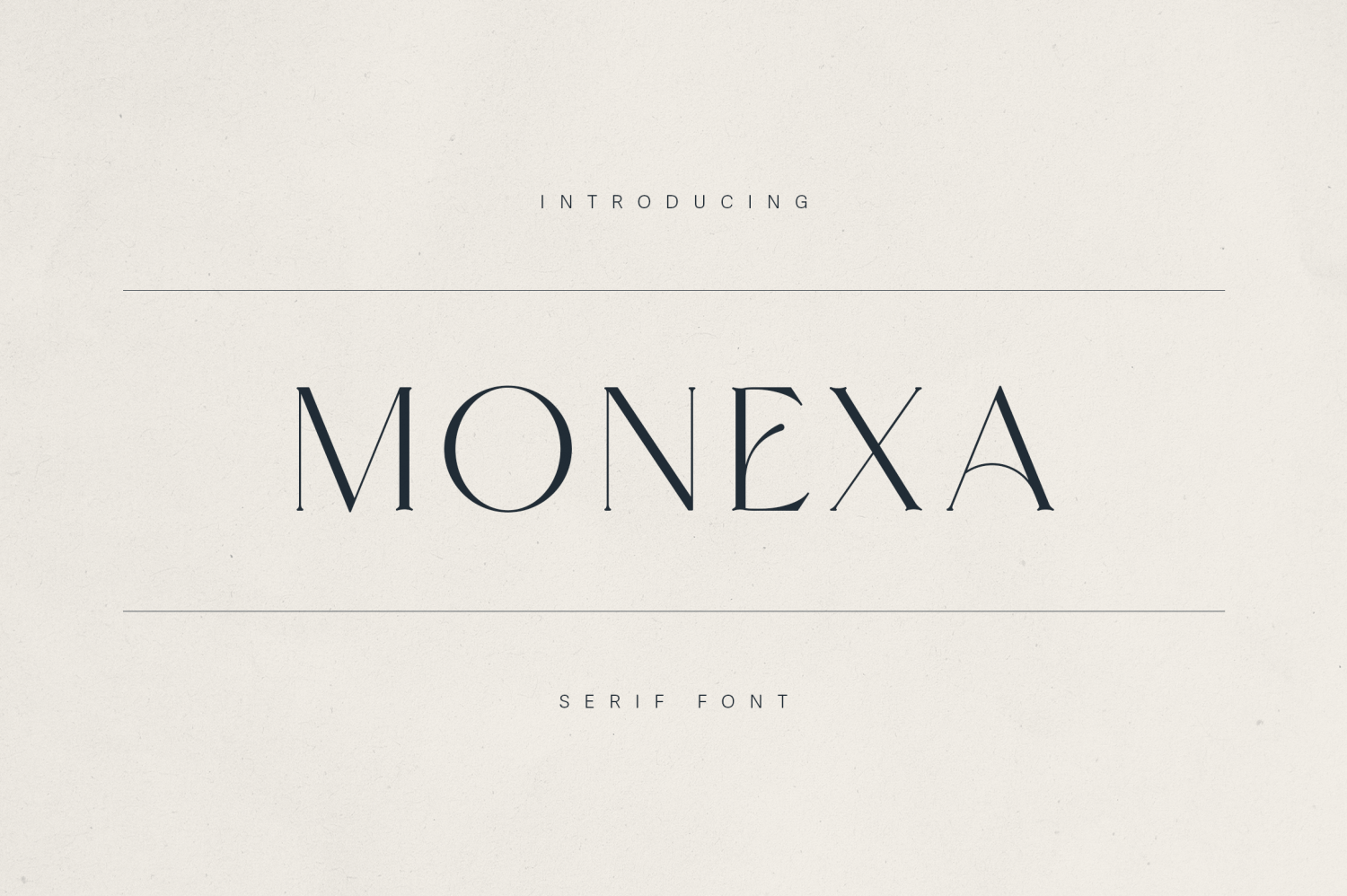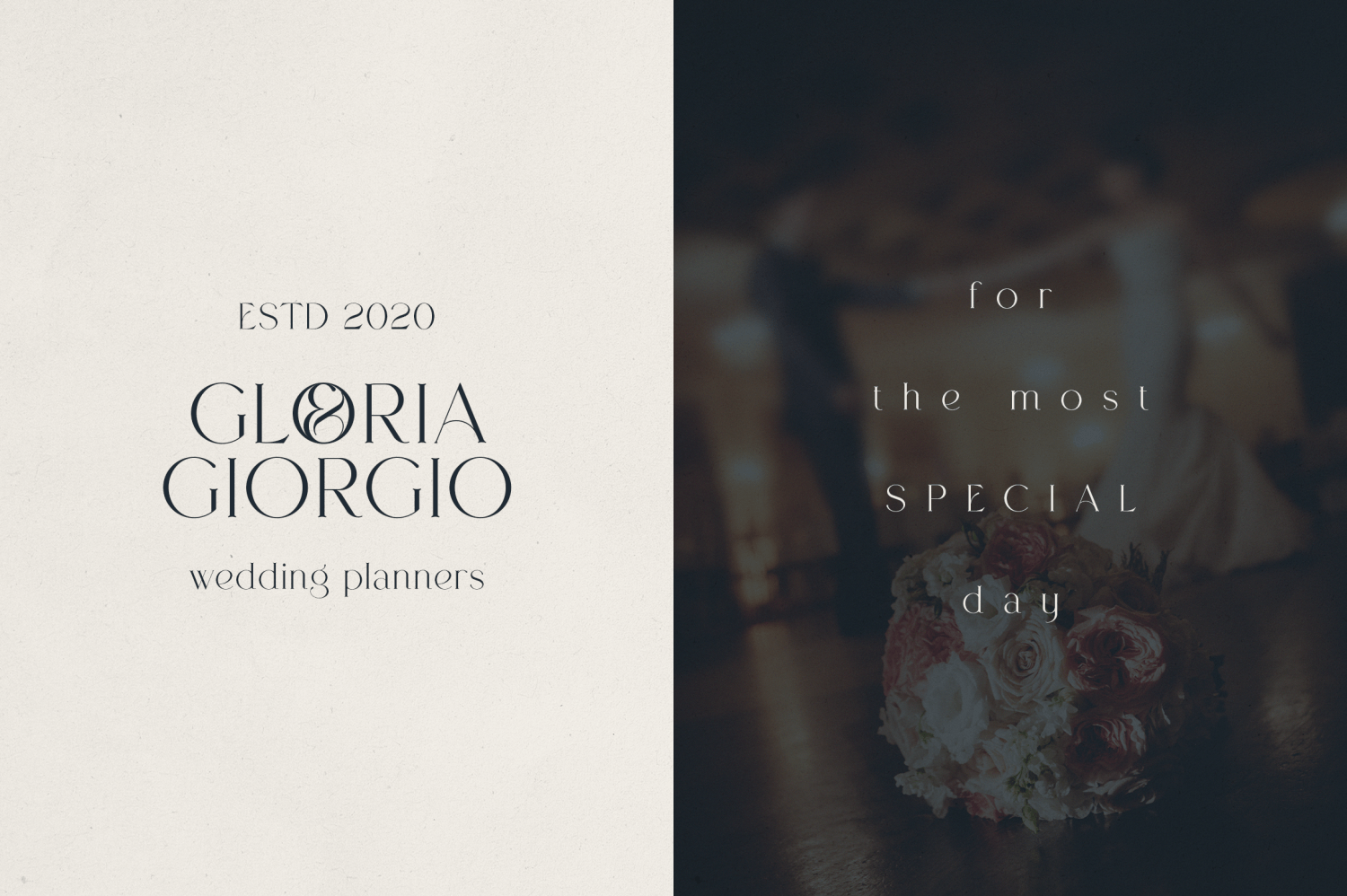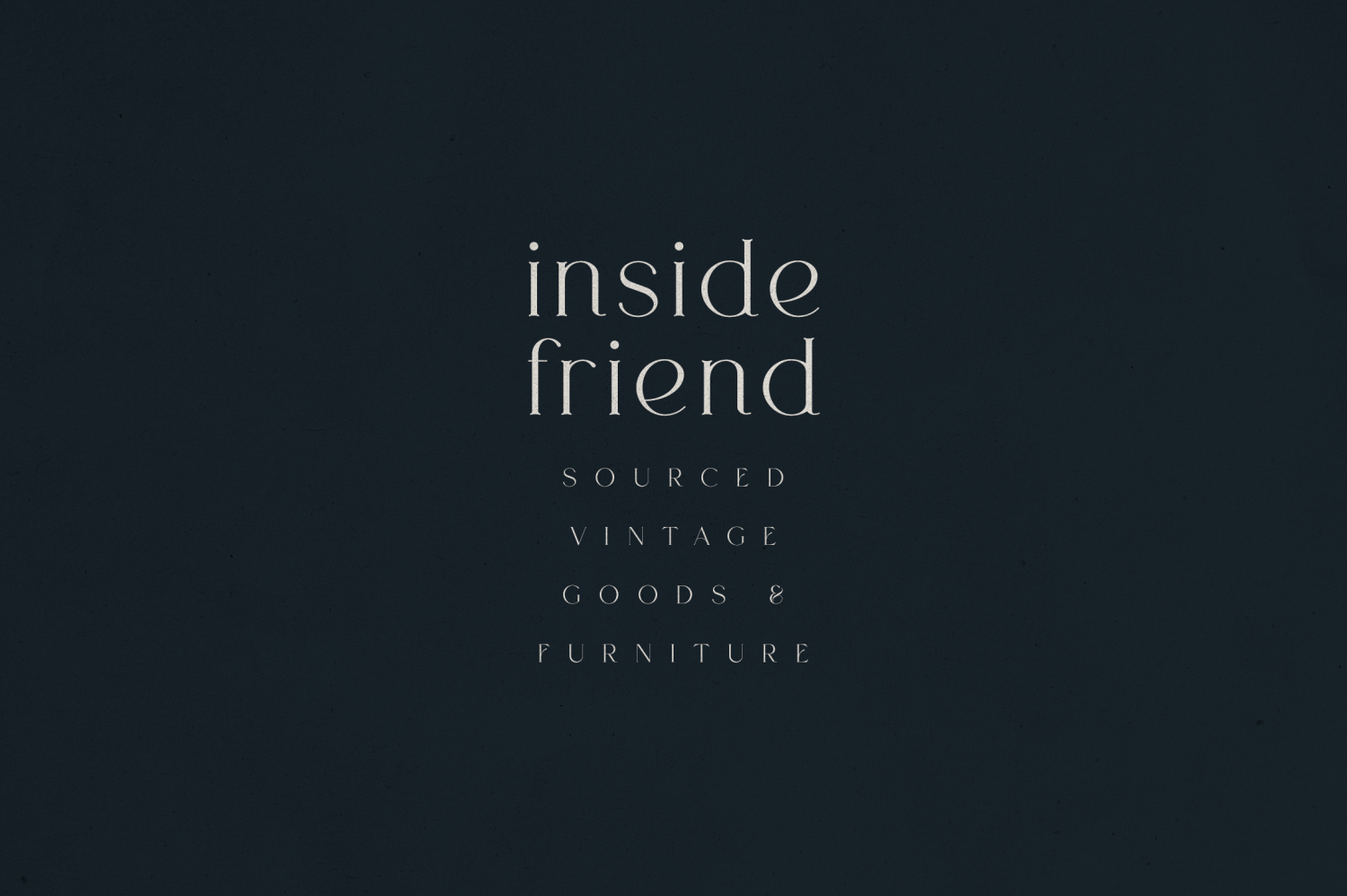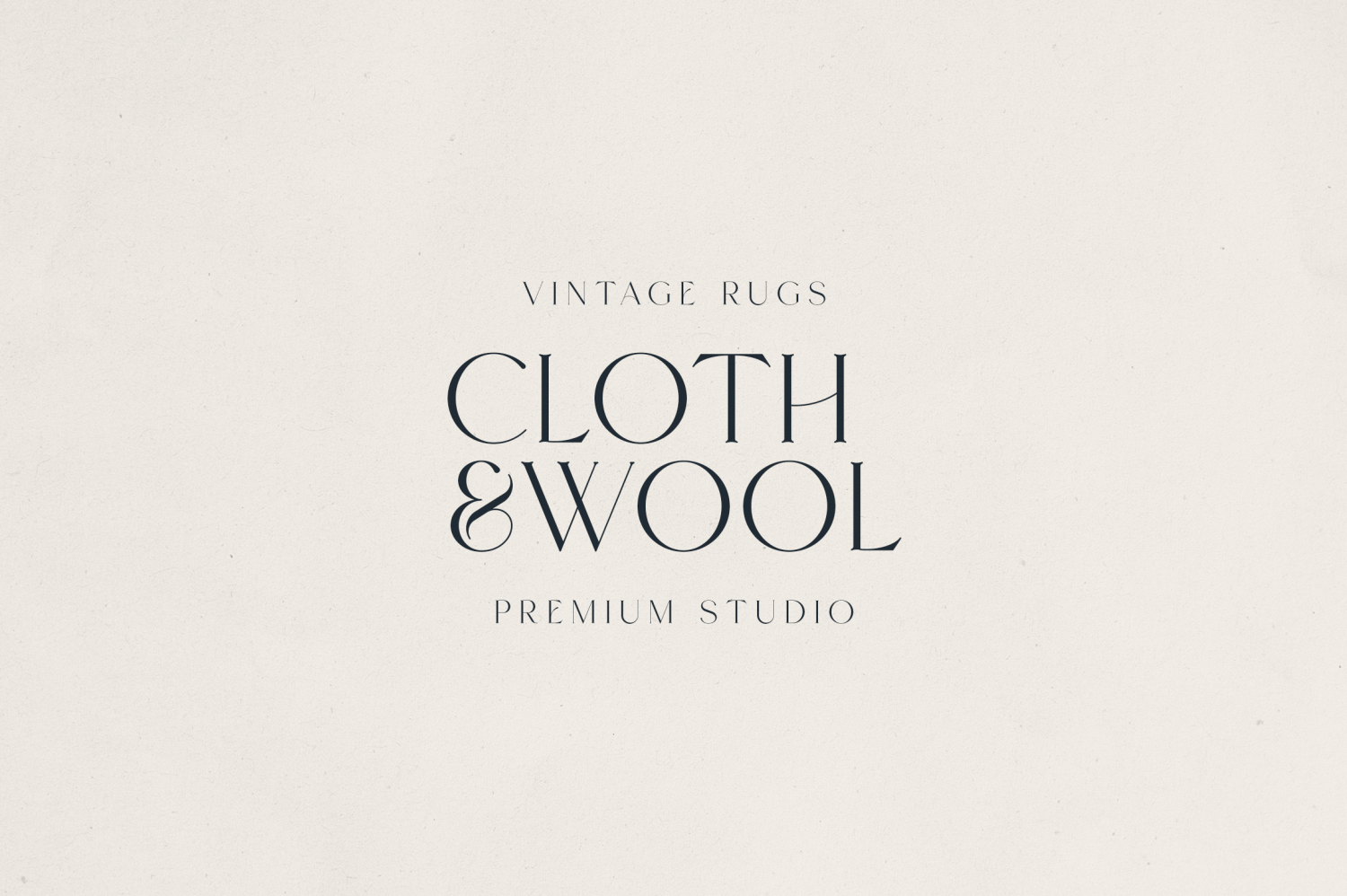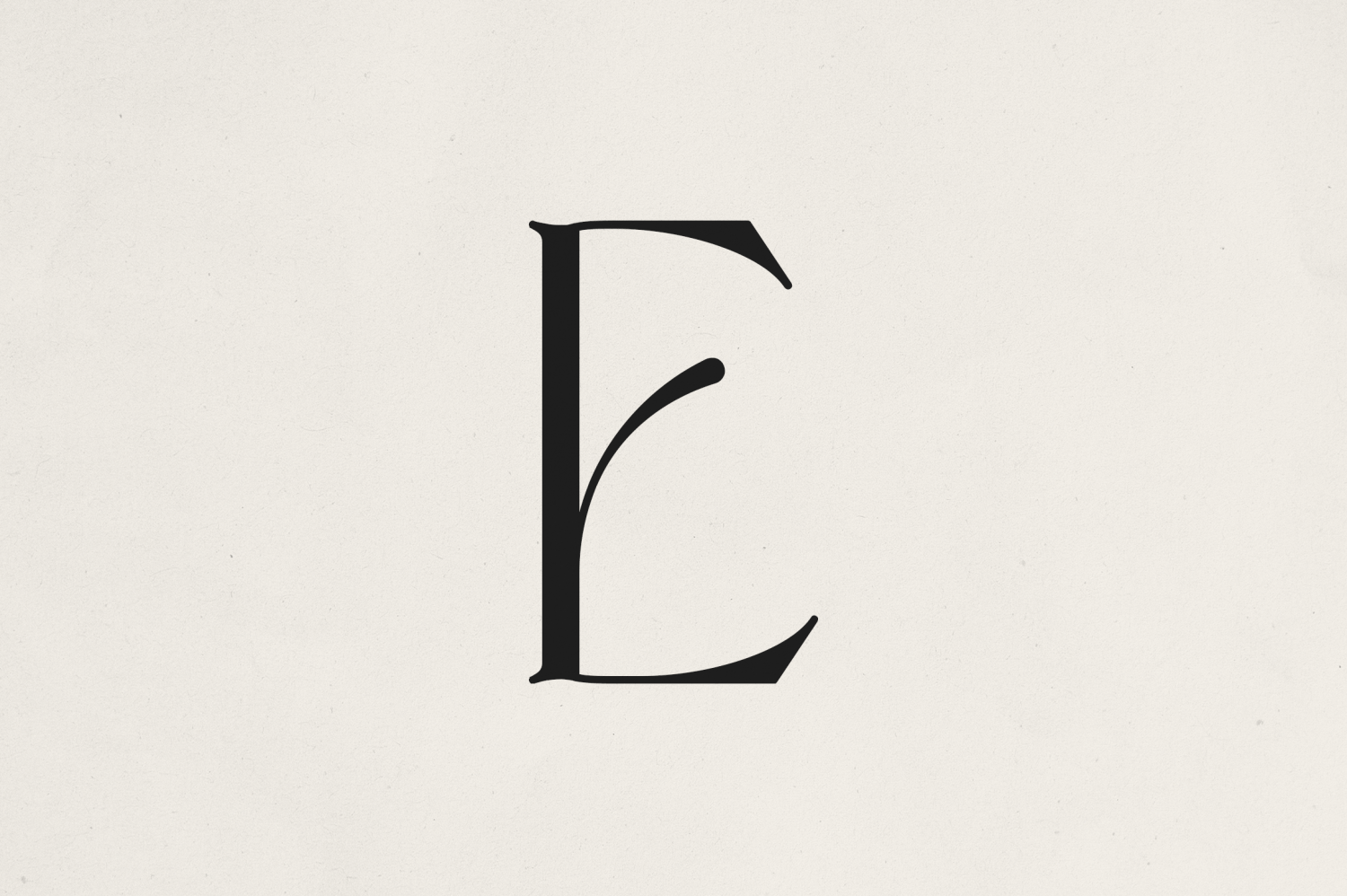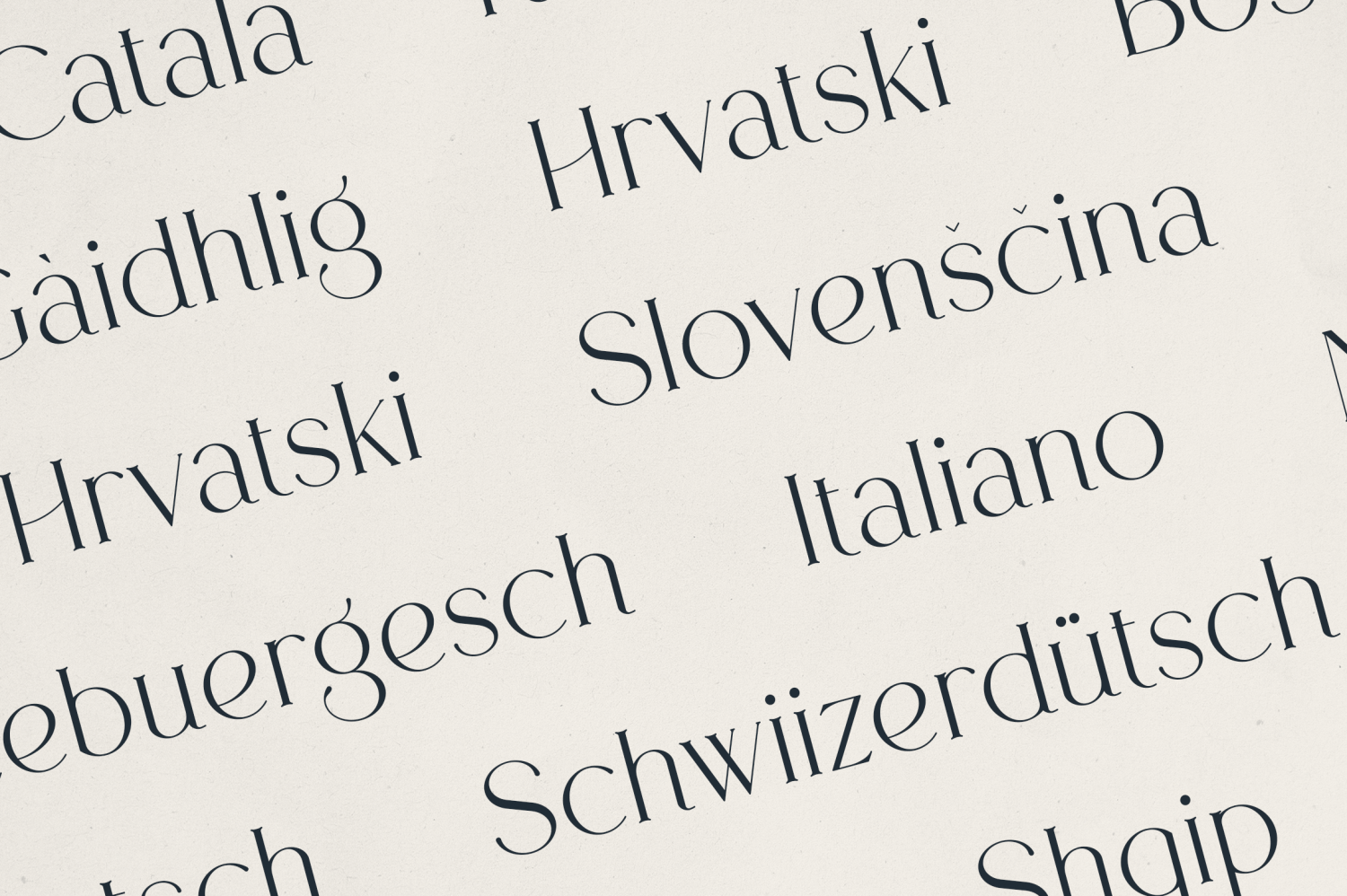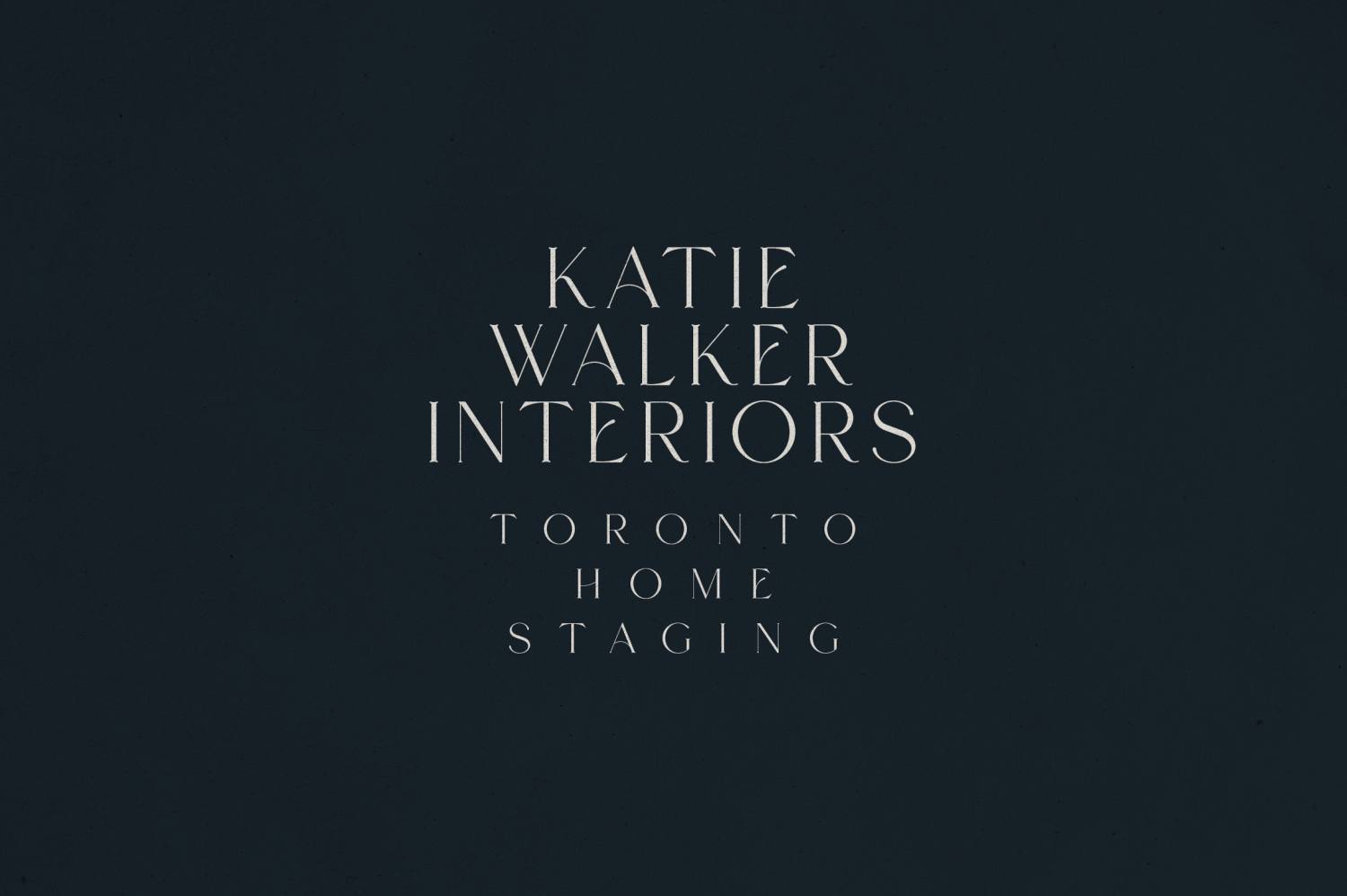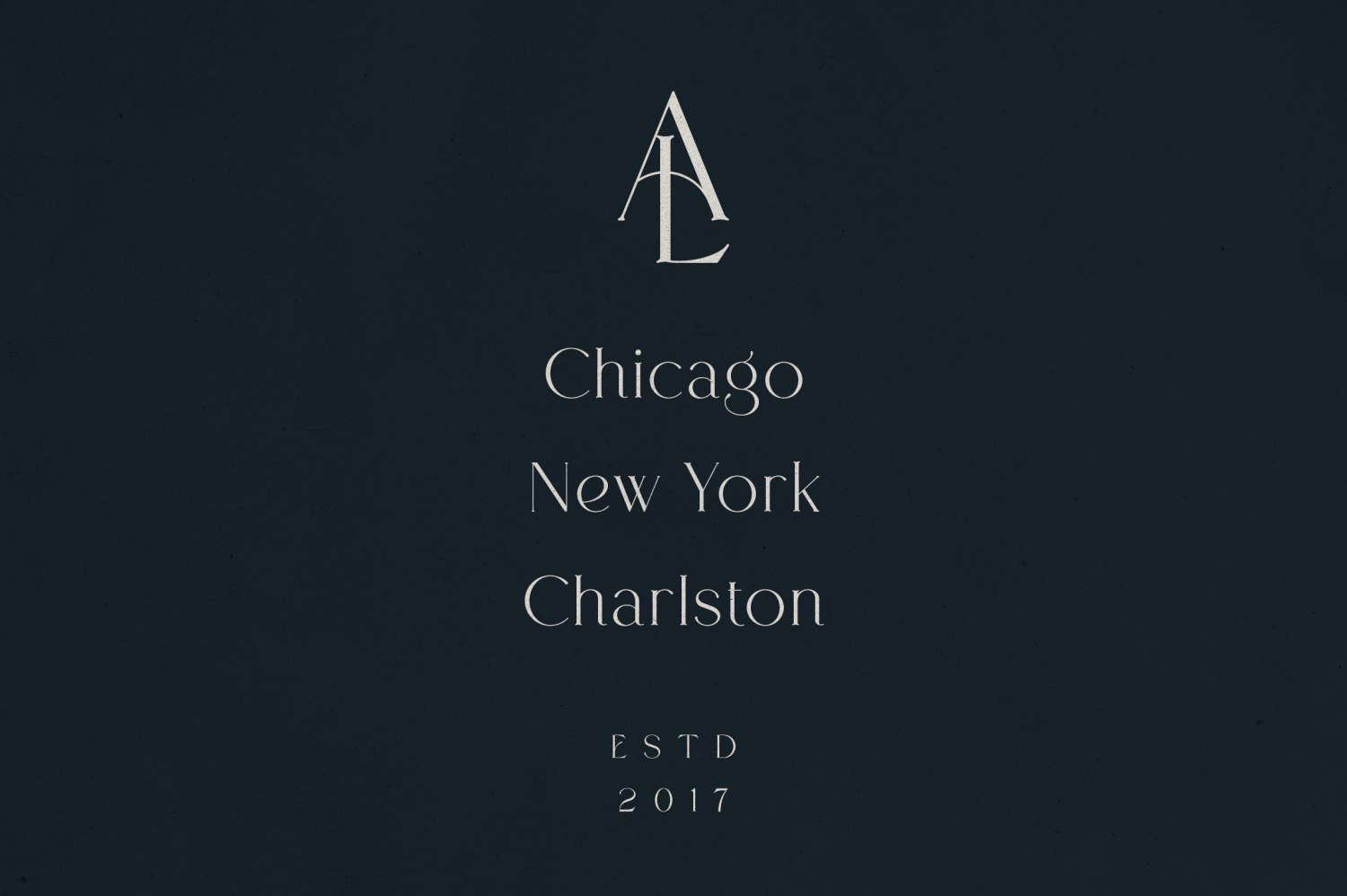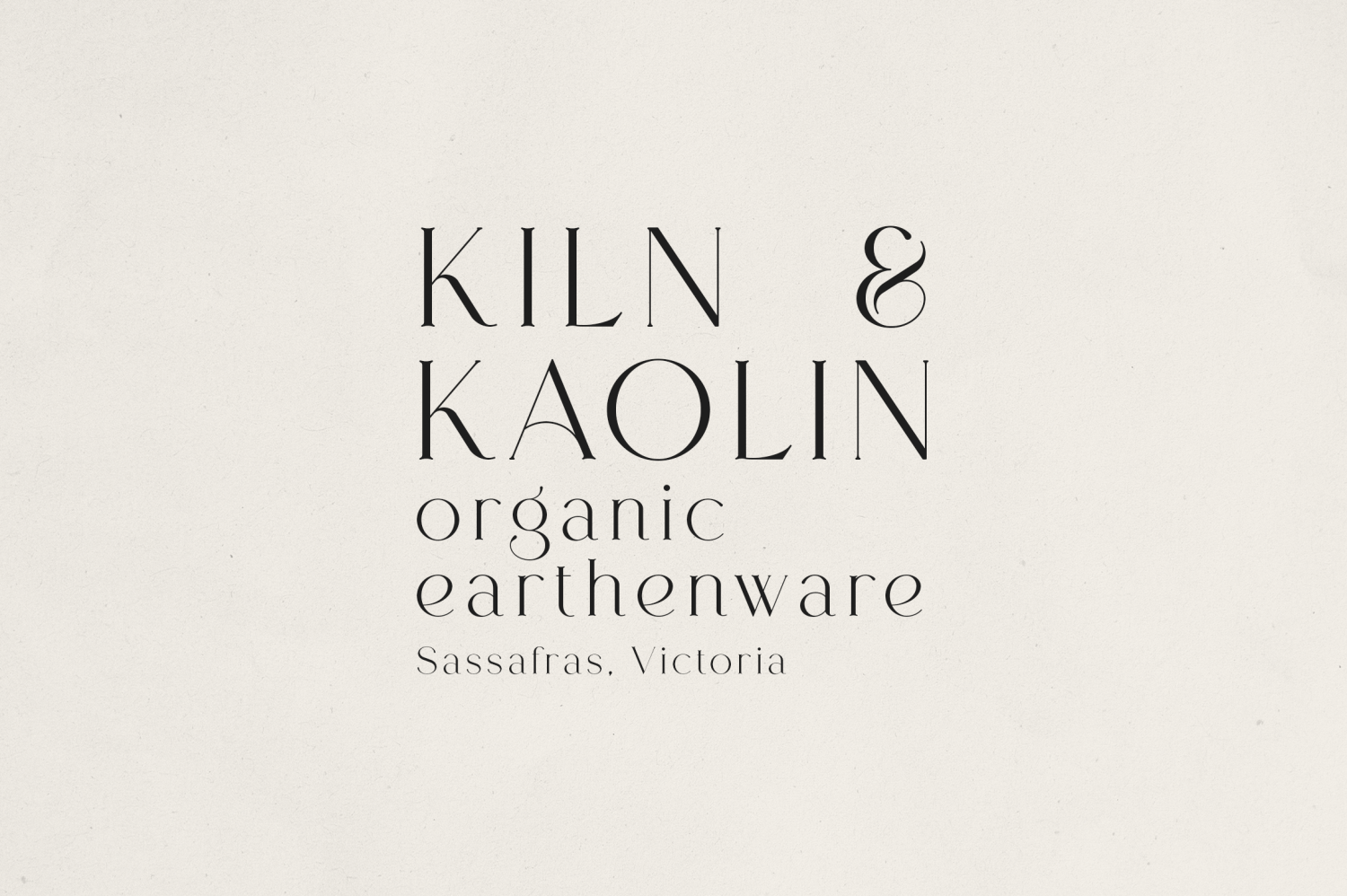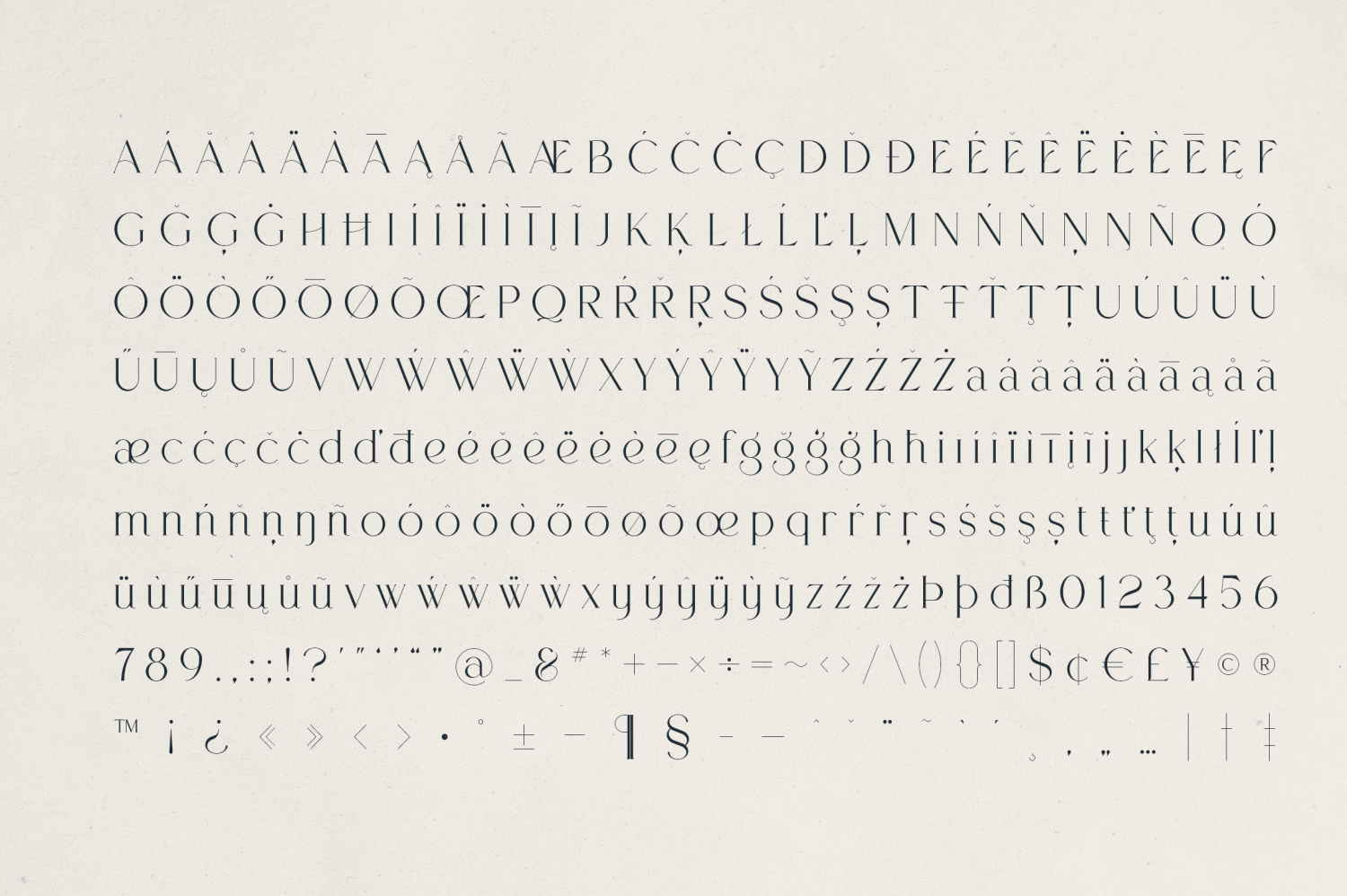
Monexa
Monexa is a sophisticated serif typeface that blends classic grace with modern flair. With high contrast strokes, elegant curves, and refined details, Monexa brings a timeless yet contemporary feel to every project. Its unique letterforms—especially the stylized "E", "R", and ampersand—evoke a sense of artful distinction, perfect for branding, editorial design, fashion, and upscale packaging. Designed to captivate, Monexa shines in both large headlines and delicate body text.
It features:
- Stylish visual harmony
- Extensive Language Support, covering 80+ Latin-based languages
- Full Set of Punctuation, Symbols & Numerals
- Ideal for logos, magazine layouts, wedding themes, vintage-modern branding, and luxury goods
Whether you're curating a minimalist aesthetic or aiming for maximal elegance, Monexa gives you the tools to craft unforgettable design stories.